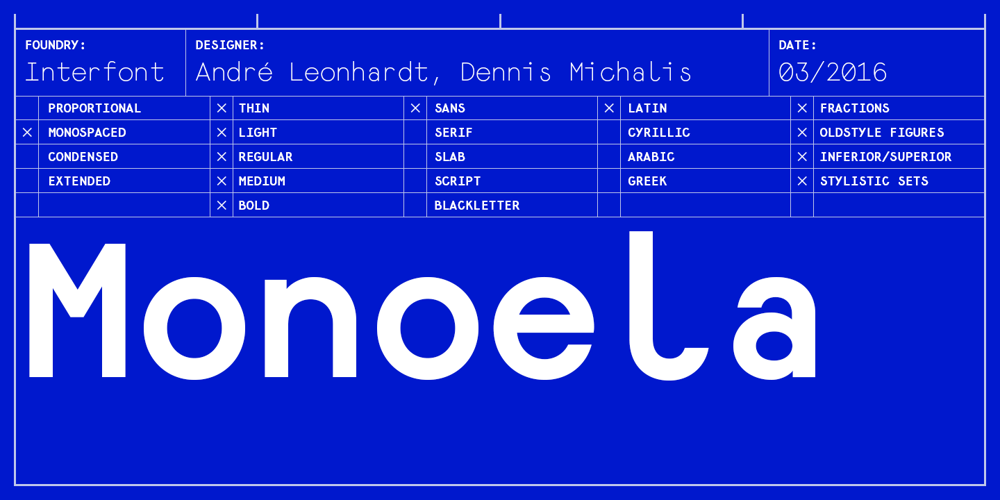
Monoela
Monoela font
Monoela Font Family was designed by André Leonhardt, Dennis Michaelis and published by Interfont. Monoela contains 5 styles and family package options. Inspired by the mechanical typewriter, Monoela interprets its characteristics in a contemporary way — whether in body text or emphasis. Despite being a non-proportional typeface, Monoela guarantees good legibility, both for man and machine. Matter-of-factly and rational at first sight, Monoela’s character becomes visible in striking shapes and unexpected proportions.